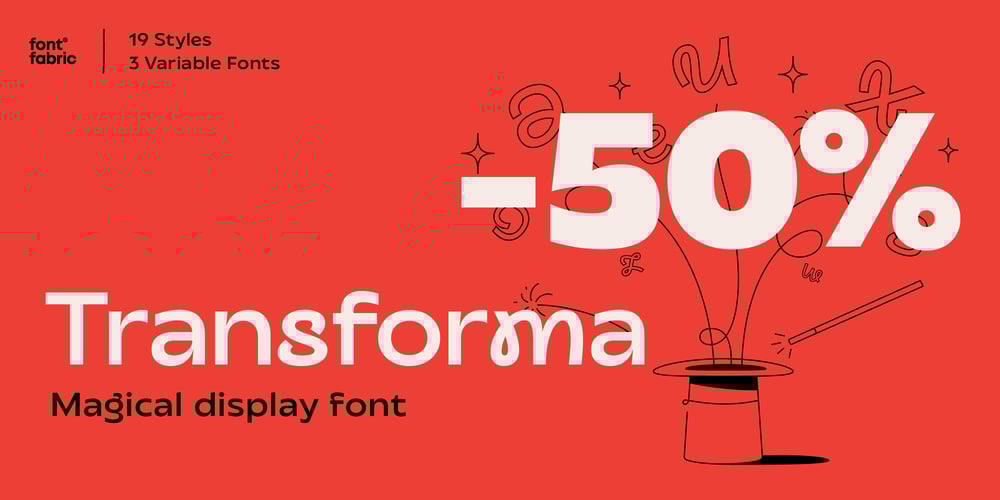
Transforma Font Family was designed by Vika Usmanova, Ani Dimitrova and published by Fontfabric. Transforma contains 22 styles and family package options. Meet Transforma, a font family that started from a spark of inspiration by our founder, Svet, and flourished under the creative hands of Type Director Viktoria Usmanova and Senior Type Designer Ani Dimitrova. Transforma is all about blending worlds – it combines a sleek sans serif with a smooth, handmade script, and introduces a third player, “The Mix,” where these styles dance together in harmony.The sans serif part of Transforma is designed with wider proportions for better legibility at smaller sizes, featuring ink traps and vertical cuts that add a contemporary touch. The ExtraBlack weight turns up the contrast and plays around with the shapes of letters like “a”, “f”, and “g” to bring something fresh to the table.The Script, on the other hand, is all about capturing the essence of handwriting, creating a flow that’s both natural and engaging. And then there’s The Mix – a creative playground where the sans and script styles merge effortlessly, proving that opposites really do attract.Ani Dimitrova, sharing her journey with Transforma, points out the fun and challenge in marrying contrasting styles into The Mix, imagining it as the perfect pick for designers who want to sprinkle some playfulness on their projects.Transforma embodies a blend of personalities: it’s engaging, lively, slightly unconventional, and always eager to bring a distinctive flair to your designs. With a total of 22 fonts across three sub-families, including three commercially free options, and extensive support for Extended Latin and Cyrillic, Transforma is poised to inspire your next creative venture